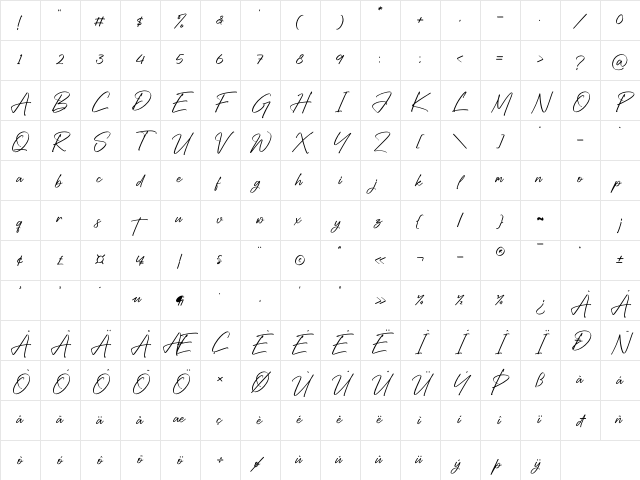
Gentry Benedict Regular
Foundry: Glorytype
Designer: Glorytype
Design Context for Gentry Benedict
Gentry Benedict is a composed and adaptable typeface that performs quietly and consistently across a wide range of design contexts.